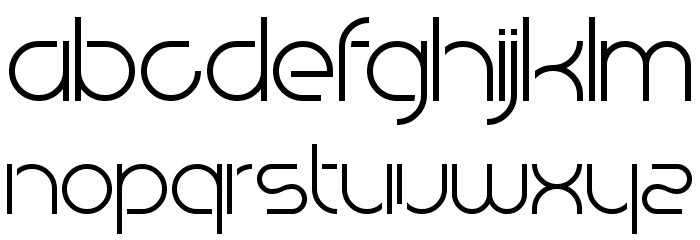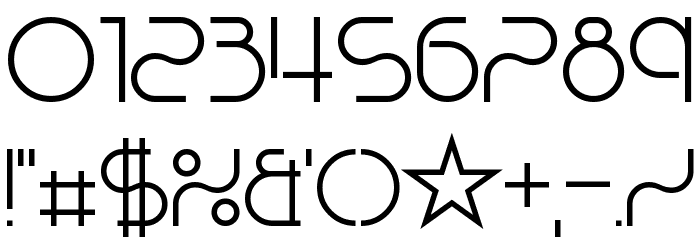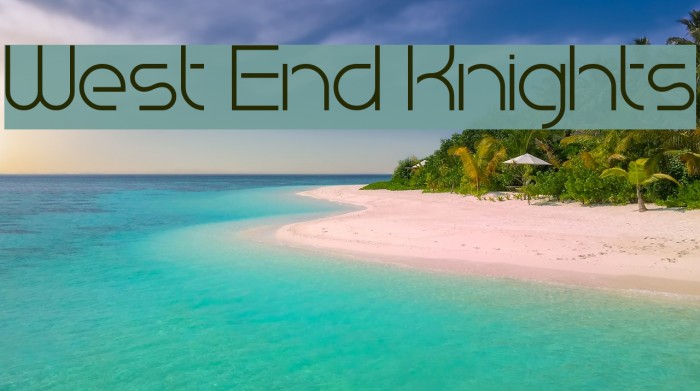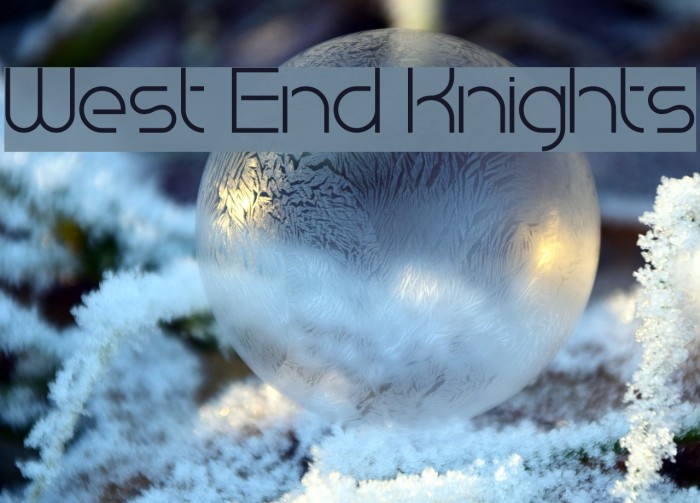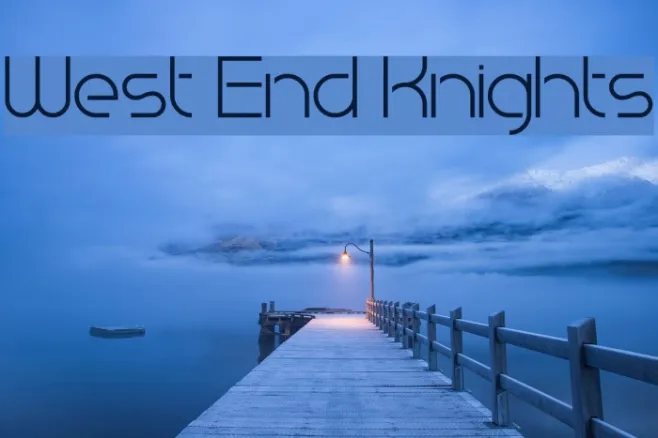
West End Knights Font
This font features a modern, geometric design with clean lines and a minimalist aesthetic. The characters are constructed with a consistent stroke width, giving it a uniform appearance. The uppercase letters are tall and narrow, while the lowercase letters maintain a similar style with rounded edges. The numerals and special characters follow the same geometric principles, ensuring a cohesive look across all elements. This font is ideal for projects that require a contemporary and sleek appearance, such as branding, digital media, and advertising.
A modern, geometric font with clean lines and a minimalist style.
- Proposed Projects: Ideal for branding, digital media, advertising, and modern design projects.